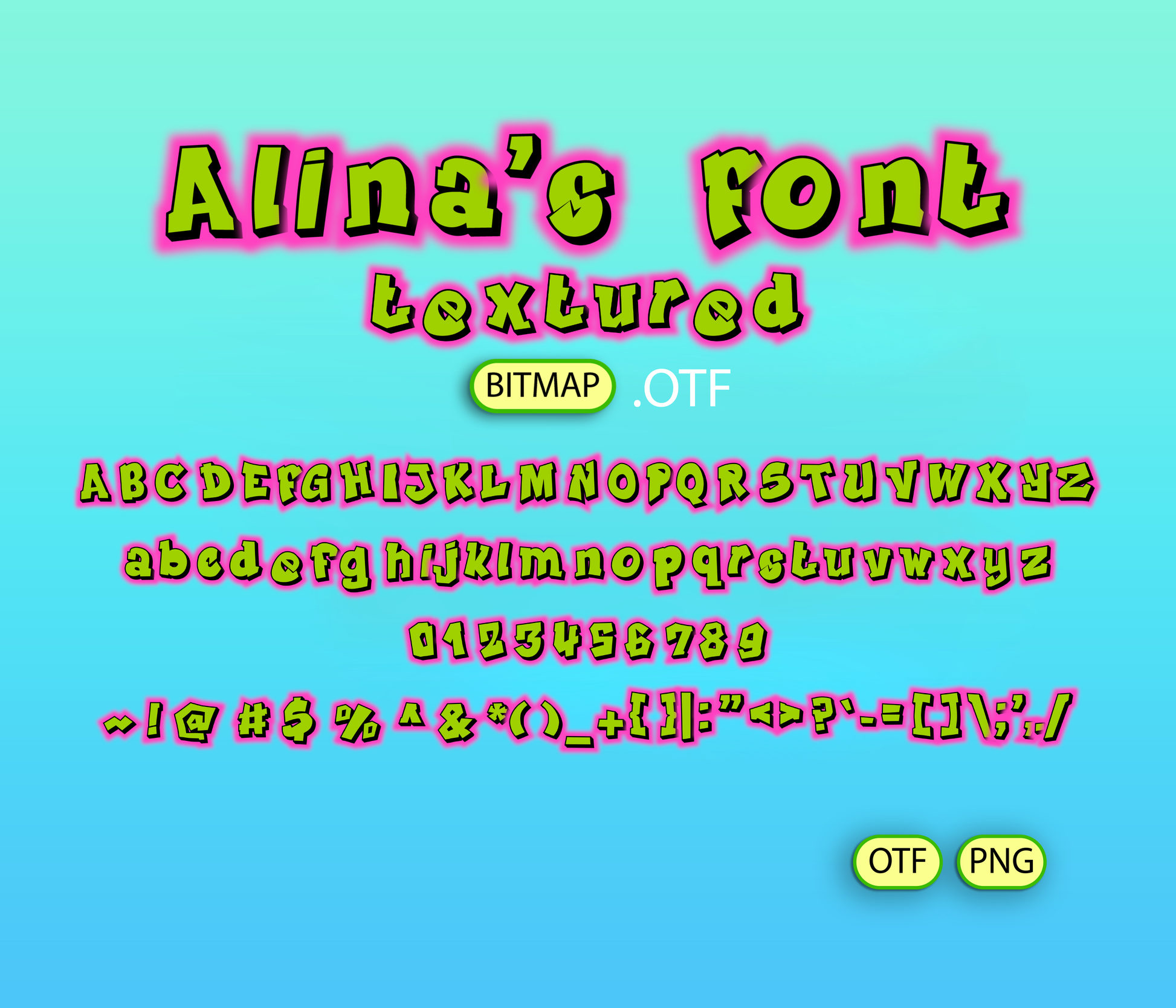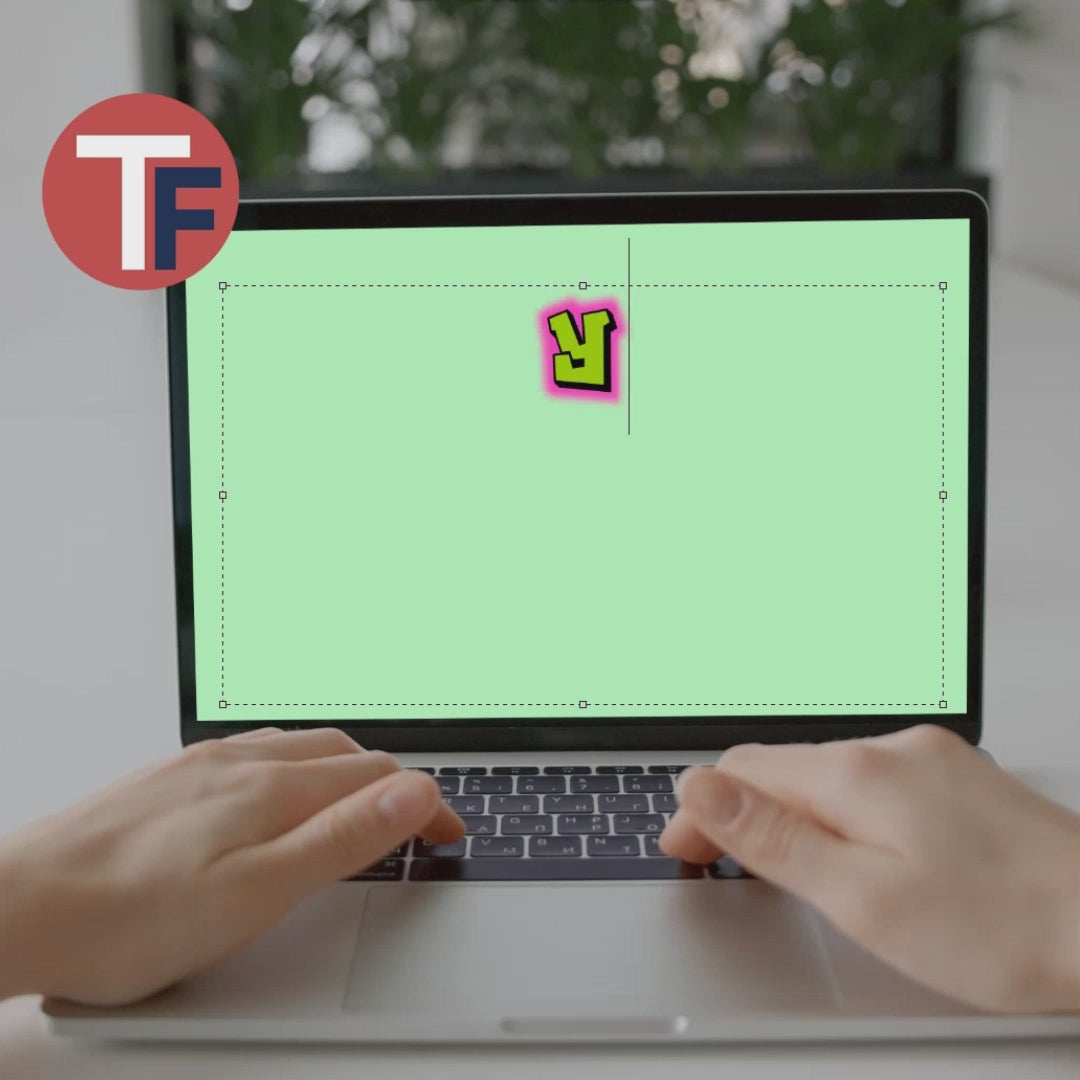
Royalty Remix Font Textured
Step into the world of 90s sitcom nostalgia with our Royalty Remix font, inspired by the iconic show about a street-smart teen's adventures in a posh Los Angeles neighborhood. This playful typeface captures the essence of the series, known for its blend of urban cool and upscale elegance, bringing a touch of that classic TV magic to your designs.
What font is the Royalty Remix font?
Imagine a typeface that embodies the spirit of 90s pop culture, with bold, energetic letterforms that capture the show's vibrant personality. Our Royalty Remix font is designed to mirror the look of that unforgettable opening sequence, featuring dynamic, eye-catching letters that seem to groove right off the page. It includes a comprehensive character set with alphabets, numbers, and special symbols, perfect for a wide range of fresh design projects.
What You Can Do With Royalty Remix Textured Font
• Textured and Non-Textured Variants: Available in both a playful, TV-inspired style and a clean, non-textured version.
• Comprehensive Character Set: Offers a wide range of characters for complete design flexibility.